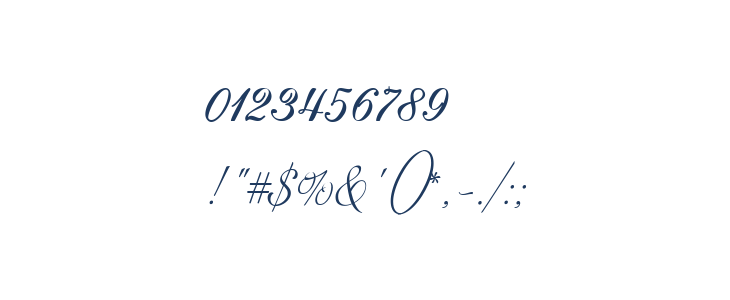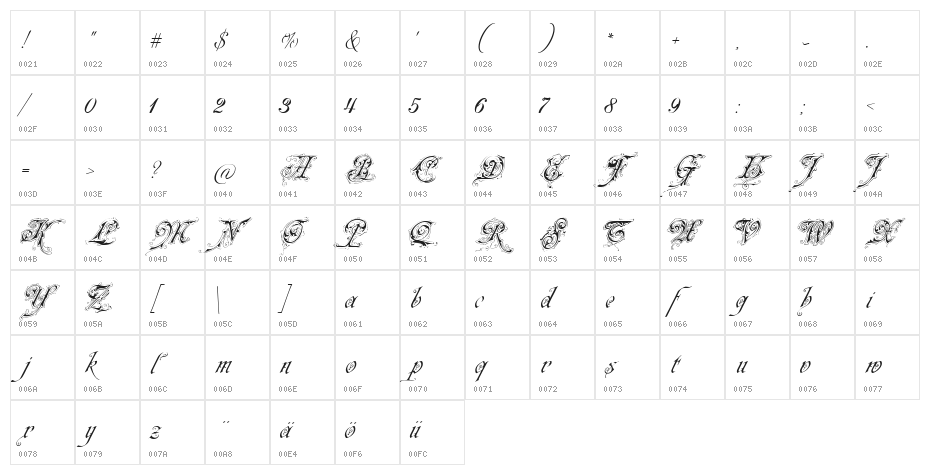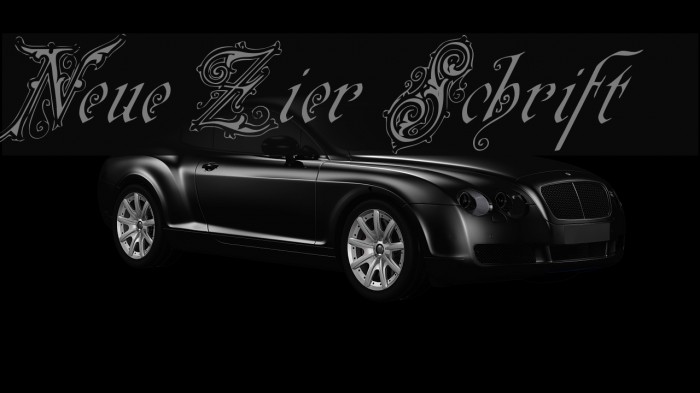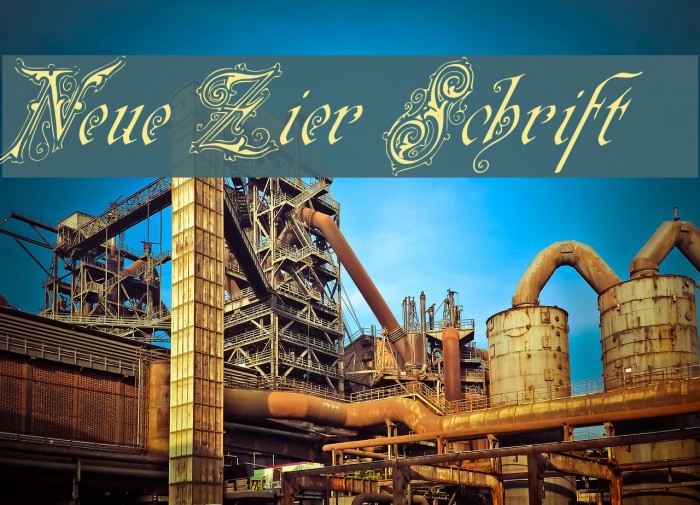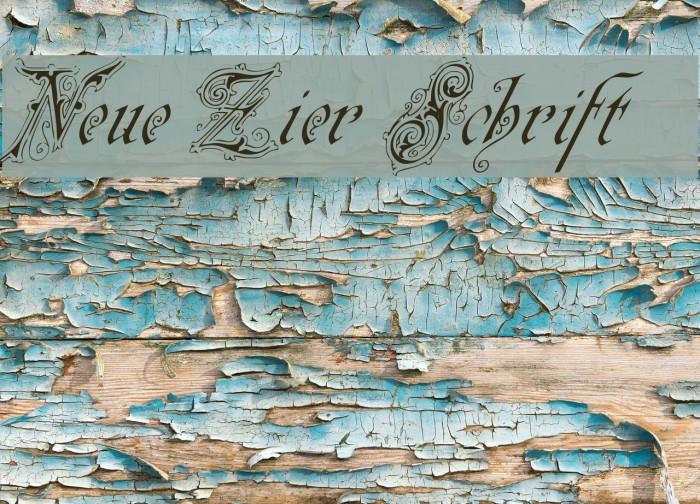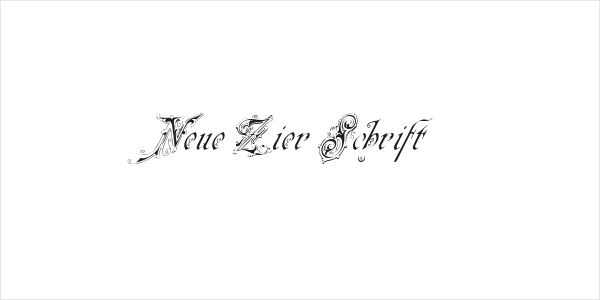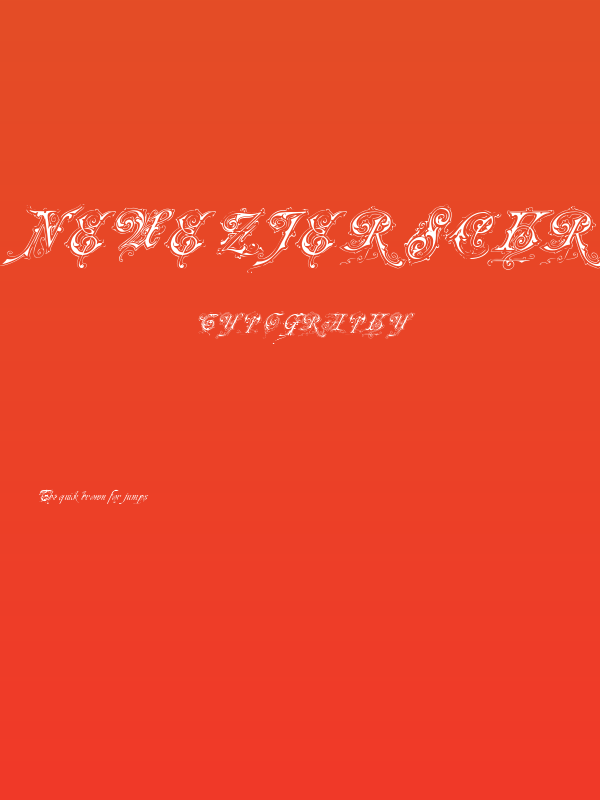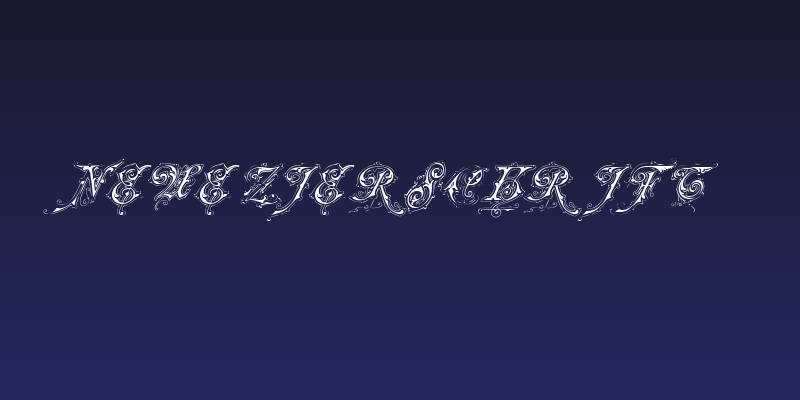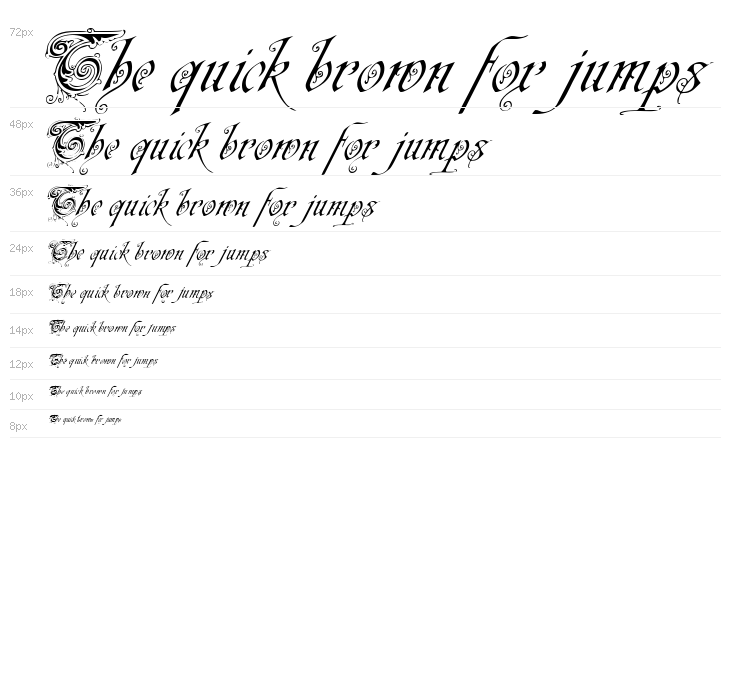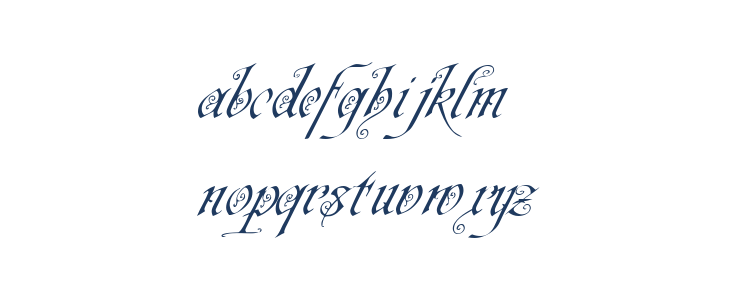
Neue Zier Schrift Font
Neue Zier Schrift Description
This font is an ornate and decorative typeface that features intricate swirls and embellishments on each character. The uppercase letters are highly stylized with elaborate flourishes, giving them a regal and sophisticated appearance. The lowercase letters maintain a similar decorative style but are slightly more restrained, allowing for readability while still offering a touch of elegance. The numerals are consistent with the overall ornate theme, featuring subtle curves and embellishments. Special characters are also designed with the same attention to detail, making this font suitable for projects that require a luxurious and artistic touch.
| Proposed Projects | Ideal for wedding invitations, luxury branding, high-end product packaging, and decorative headlines. |